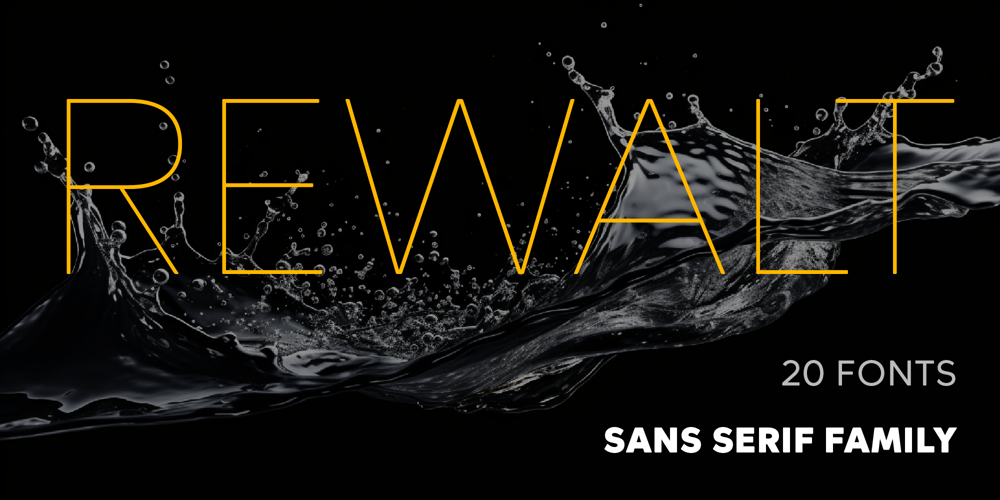
Rewalt Font Family was designed by Nikolay Savchuk and published by NicolassFonts. Rewalt contains 20 styles and family package options. Rewalt family is perfectly suited to headlines, logotypes, books, magazines, motion graphics, and use on the web and TV. Rewalt is an OpenType font family that converts any text – including the most complex layouts – into an expressive design.This font is a modern rounded sans serif typeface that can be used as a headline or as a body copy typeface.